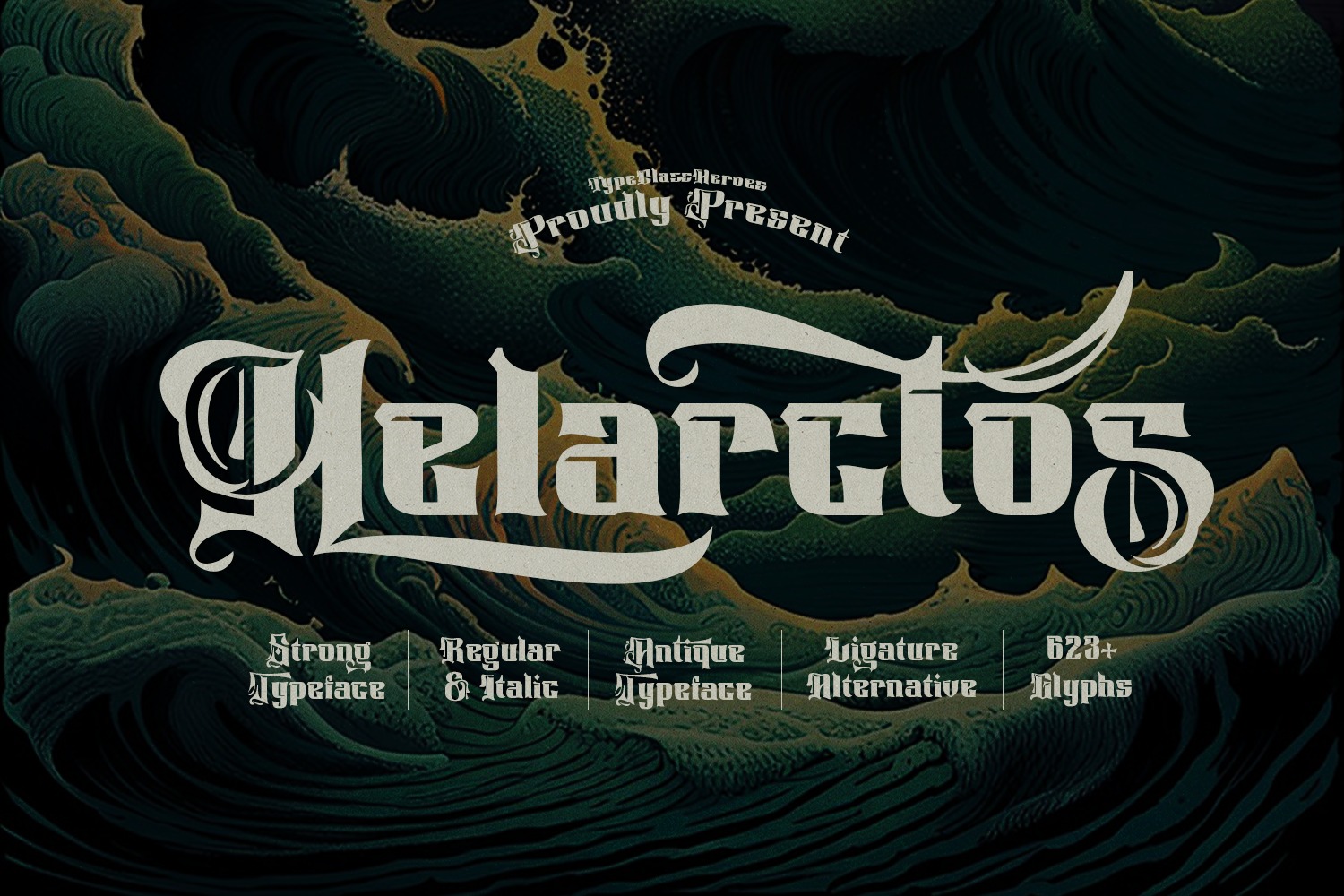
Helarctos Antique Font
Helarctos Antique Font is a flexible and reliable font created to fit multiple design needs, from branding and packaging to social media and editorial layouts. Helarctos, this font features a classic antique style with a touch of Victorian typography era. The letterforms are bold, sharp, and adorned with swashes, giving a strong, elegant, and vintage feel. The characters are artistic and bold, easily attracting attention, making this font ideal for titles, logos, branding, posters, merchandise, and tattoo designs.